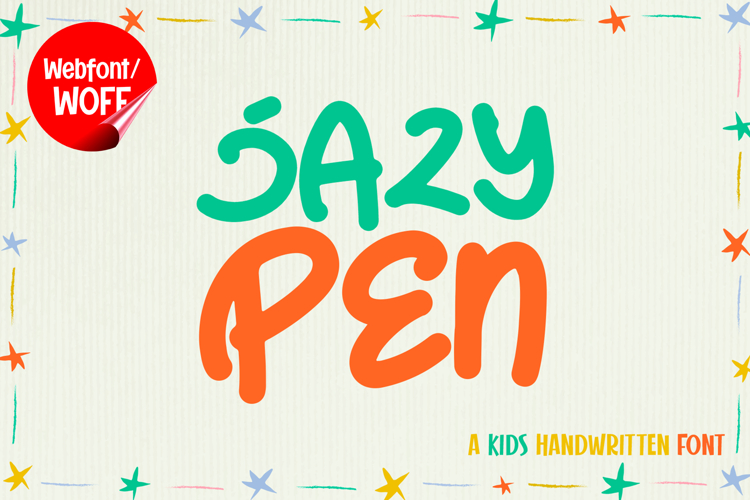
Jazy Pen | Kids Handwritten Webfont for Fun Creative Design
Jazy Pen is a kids handwritten webfont designed to bring playful creativity and cheerful energy into modern website design. Inspired by children’s handwriting, doodles, and fun classroom lettering, this font features natural strokes and charming shapes that create a warm and friendly visual identity. It is an excellent choice for projects that aim to deliver a fun, approachable, and engaging typographic style.
Jazy Pen includes a complete set of uppercase characters designed with playful handwritten forms. The letterforms feature soft curves and natural movement, creating an authentic hand-drawn appearance that feels lively and creative. These characteristics make it ideal for headlines, banners, hero sections, educational content, and featured areas where a fun and friendly atmosphere is needed.
In addition to letters, the font includes numbers and punctuation, allowing flexible usage across various parts of a website. It works well for kids’ websites, school projects, toy branding, activity pages, invitations, and creative promotional campaigns. Each character maintains a consistent handwritten style, ensuring a cohesive and visually appealing design throughout the layout.
With multilingual support, Jazy Pen includes a wide range of accented characters, making it suitable for international websites and global audiences. This ensures content remains clear and visually consistent across different languages while preserving the playful and handwritten aesthetic.
The kids handwritten style of Jazy Pen makes it especially suitable for children’s brands, educational platforms, family blogs, craft websites, and creative digital projects. Its cheerful and expressive appearance adds warmth and charm, helping websites stand out in visually competitive environments. The handwritten details create a relaxed and welcoming visual atmosphere.
Despite its playful and handwritten appearance, Jazy Pen is designed with readability in mind. The spacing and proportions are carefully balanced to ensure clarity, particularly in display sizes. This makes it effective for impactful headings and short content elements where both style and usability are important.
Jazy Pen is a webfont that combines fun handwritten aesthetics with modern web performance. Its playful strokes, cheerful character, and creative style create a distinctive typographic presence that enhances website design. For projects that require a cute, lively, and visually engaging handwritten font, Jazy Pen offers a versatile and delightful solution.